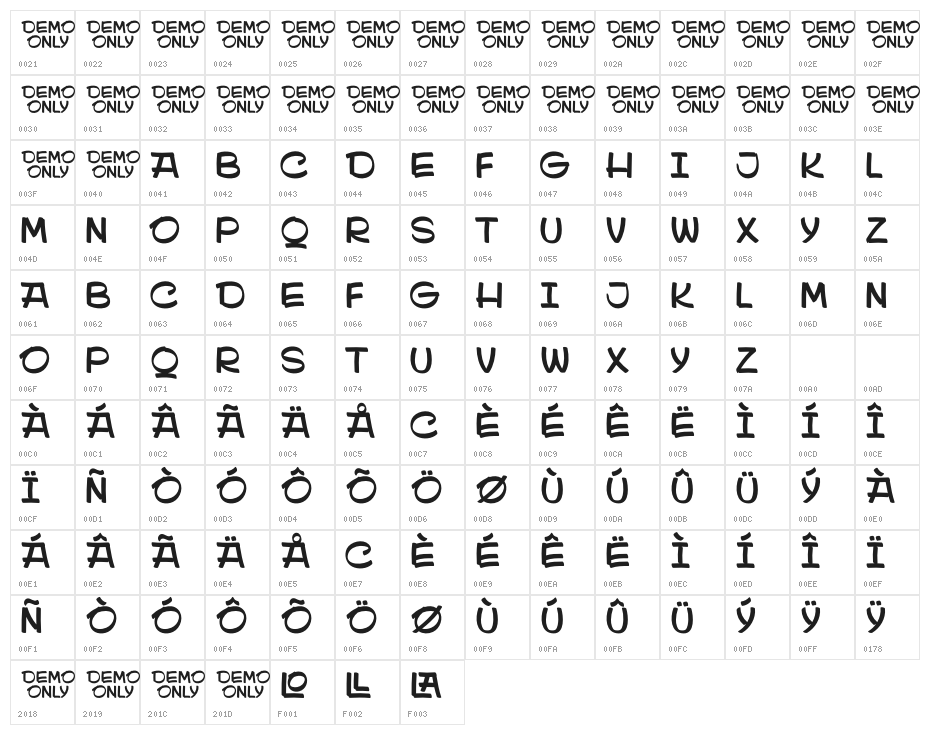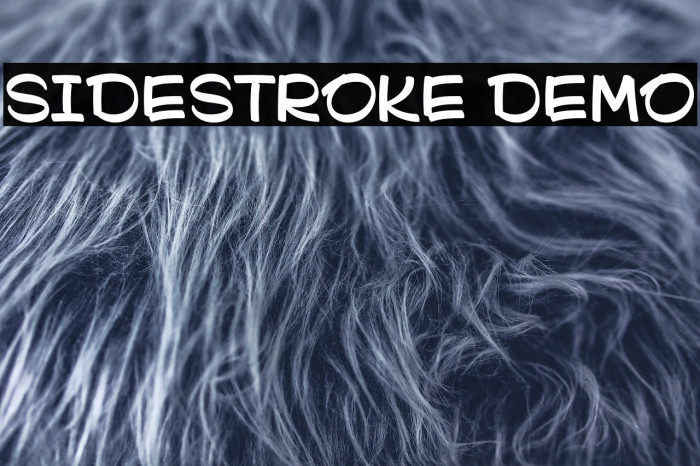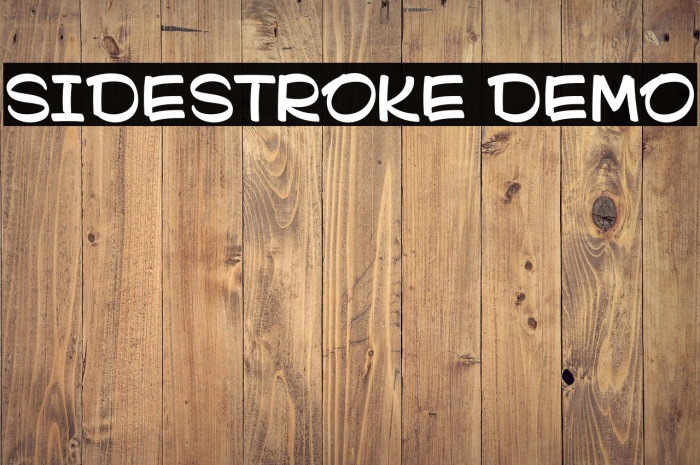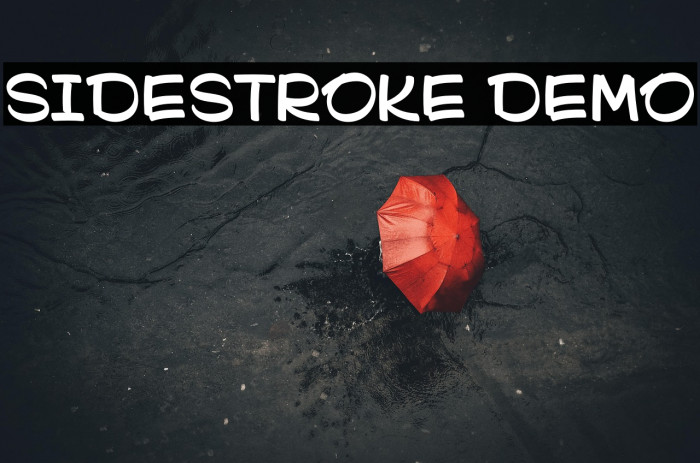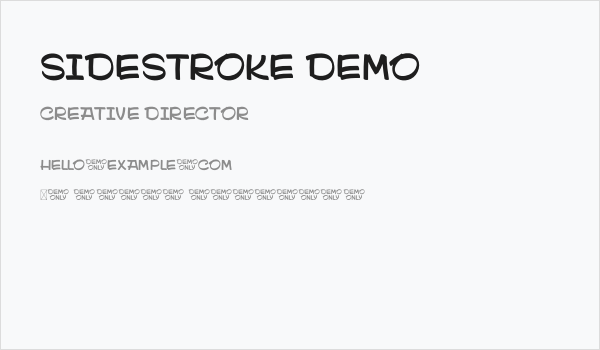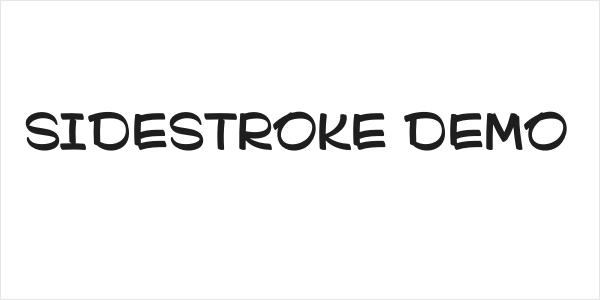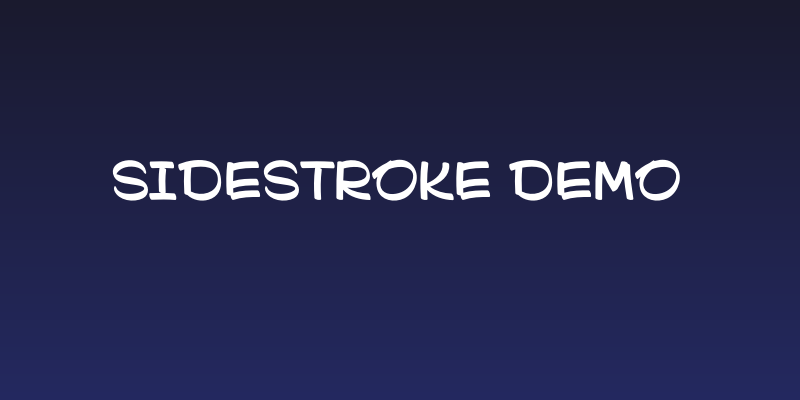
Sidestroke DEMO Font
Sidestroke DEMO Description
This font features a playful and bold style with a hand-drawn appearance. The characters are slightly irregular, giving it a casual and informal feel. The strokes are thick and rounded, creating a friendly and approachable look. The uppercase letters are consistent in height, while the lowercase letters maintain a similar width, ensuring readability. The font's unique style makes it stand out, with each letter having a distinct personality. It's suitable for projects that require a fun and engaging typeface.
Overall StyleCasual, Playful
Proposed ProjectsIdeal for children's books, playful branding, casual invitations, and creative posters.